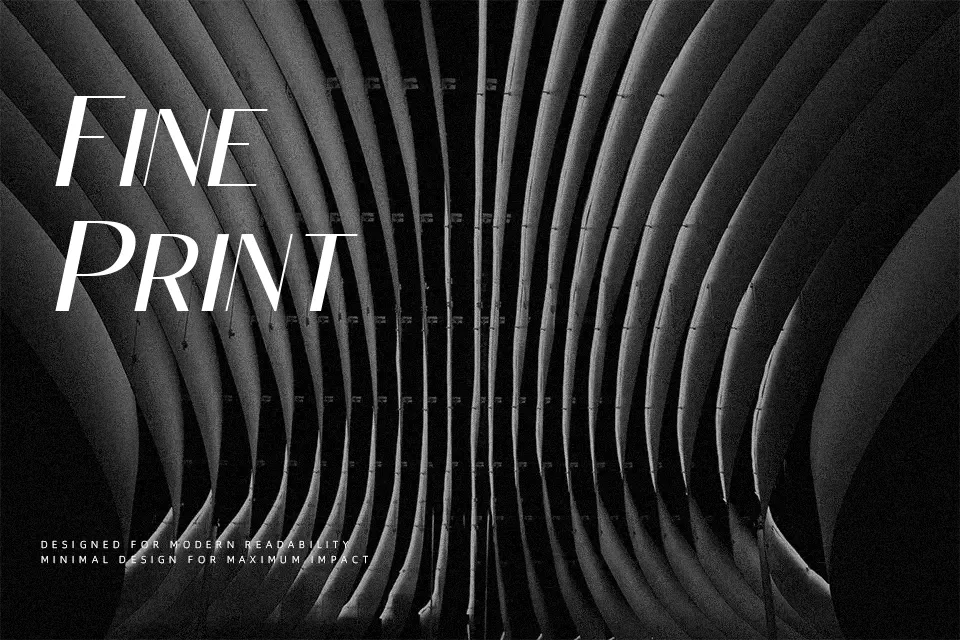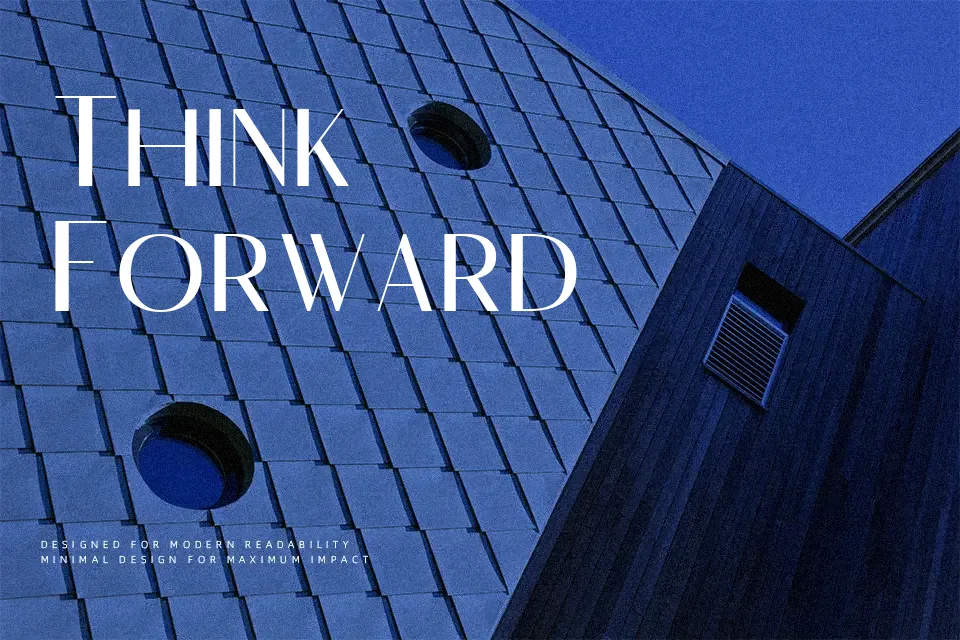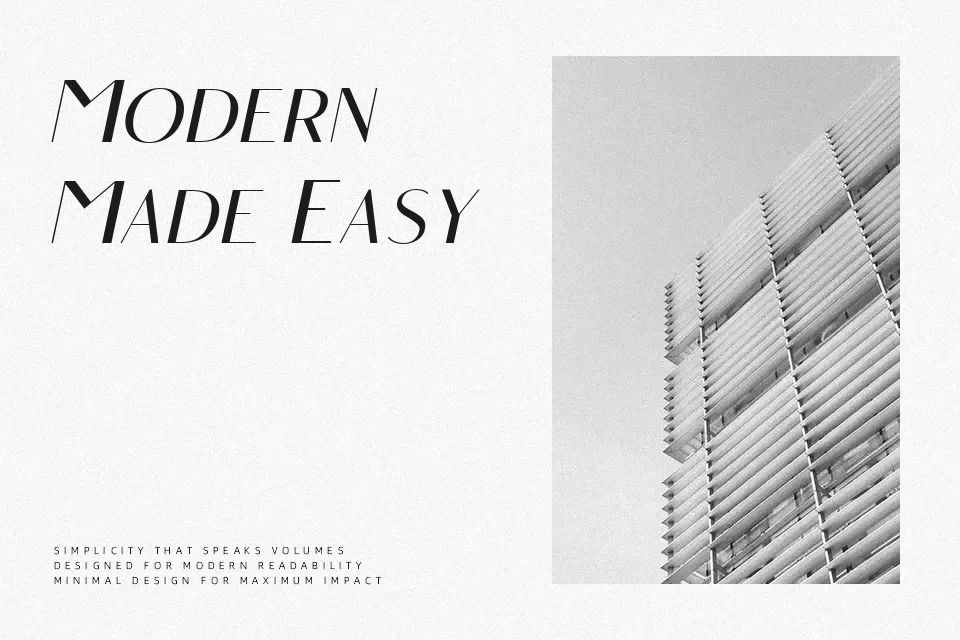
Angelic Bonques Sans Font
Designed by Craft Supply Co.
Angelic Bonques Sans is a refined sans serif with smooth curves, low contrast strokes, and generous internal spacing that gives words an airy, upscale feel in display sizes. Its letterforms feel contemporary yet soft, which works well for fashion lookbooks, boutique logos, packaging tags, and social media quote posts where a subtle, feminine voice is desired. The demo character set is limited and better suited to short headlines or name marks than dense paragraphs, so it can struggle in body text or information-heavy layouts. When paired with its script companion, it delivers a polished, lifestyle-oriented aesthetic, but it is less effective for technical, corporate, or highly legible small-size uses.
fashion brand wordmarks
boutique product packaging
social media quote graphics
wedding or lifestyle blog headers
technical UI labels or small captions
multilingual or extended character layouts
Perfect for branding, fashion, and headline, with a creative and display style.